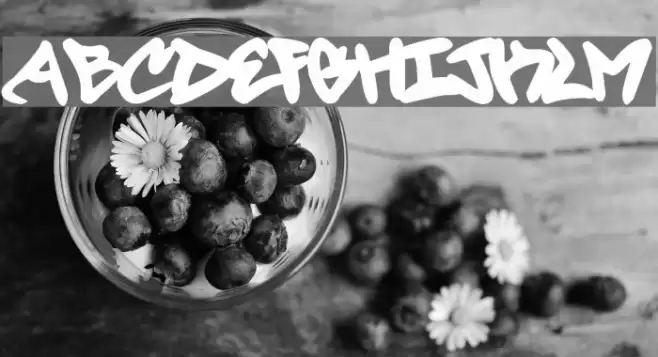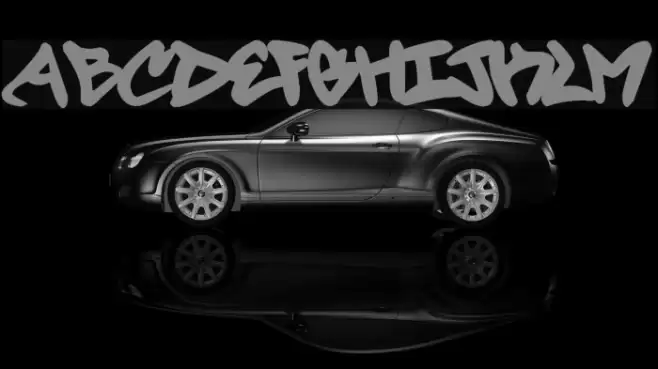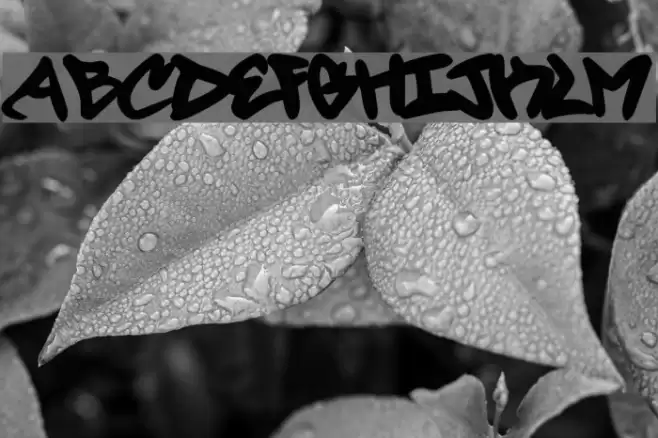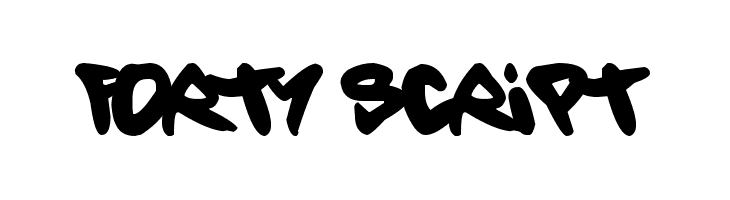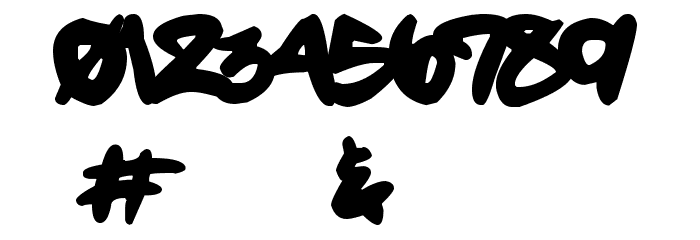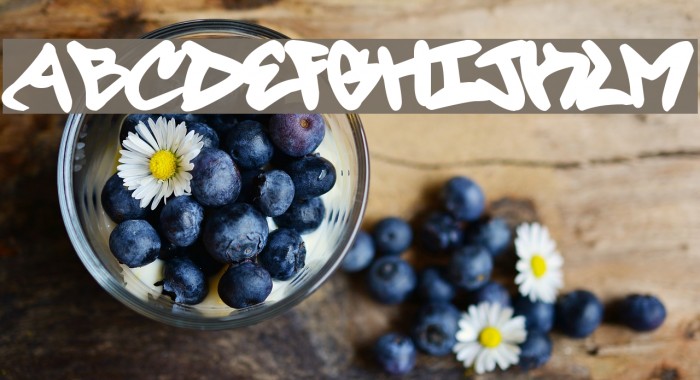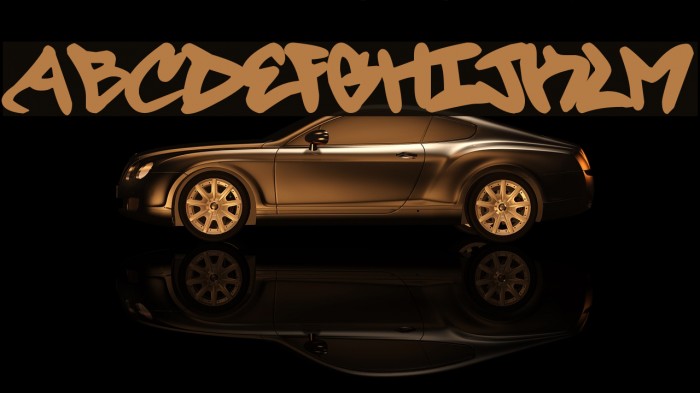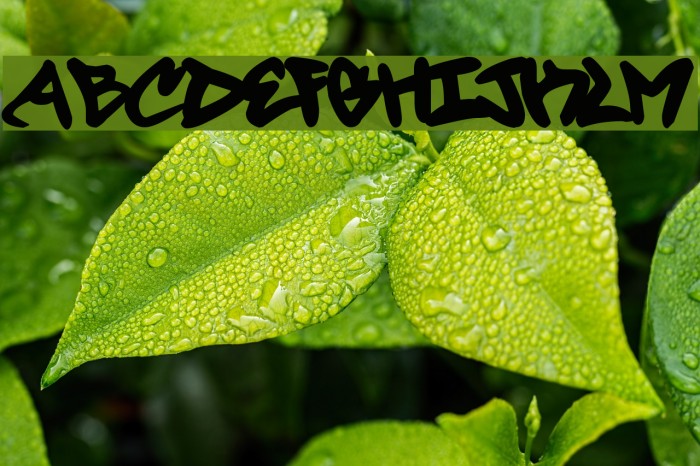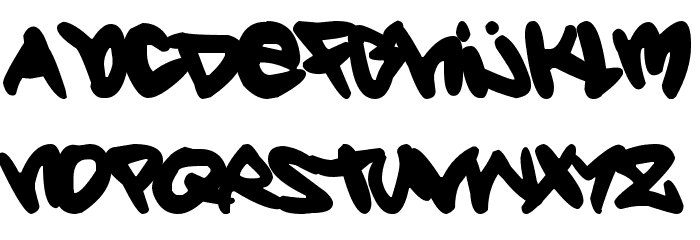
Forty Script Font
Forty Script Description
This font exudes a bold and dynamic presence with its thick, flowing strokes and energetic style. The characters are interconnected, giving it a cohesive and fluid appearance reminiscent of graffiti or street art. Its informal and expressive nature makes it stand out, capturing attention with its artistic flair. The uppercase and lowercase letters maintain a consistent style, while the numerals and special characters complement the overall aesthetic. This font is perfect for projects that require a touch of creativity and boldness.
A bold, graffiti-inspired script font with dynamic, flowing strokes from Uncategorized fonts.
- Proposed Projects: Ideal for street art designs, urban-themed posters, music album covers, and creative branding.
- Character Spacing: Tight